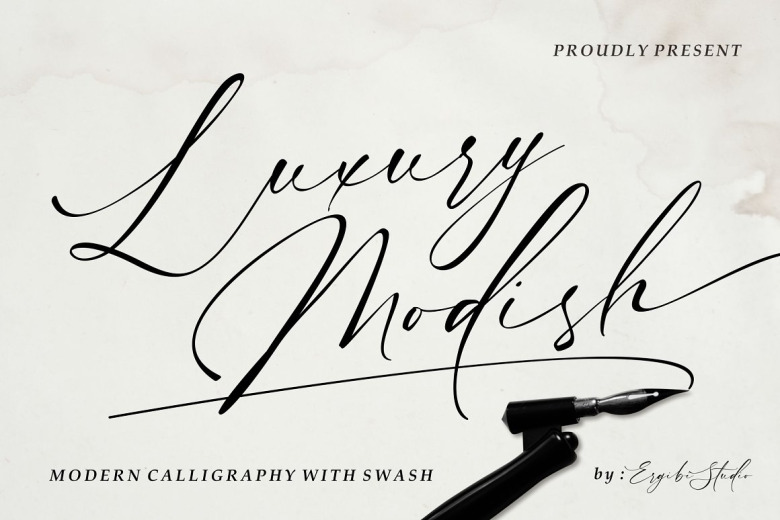
Luxury Modish Font
Luxury Modish is Modern Calligraphy font presentation from Ergibi Studio. This font comes with uppercase and lowercase letters, numbers, punctuation marks, symbols, swash lines, and multilingual support. Luxury Modish is perfect for branding, photography, business cards, quotes, watermarks, merchandise, social media, and other projects.
Luxury Modish Calligraphy Font